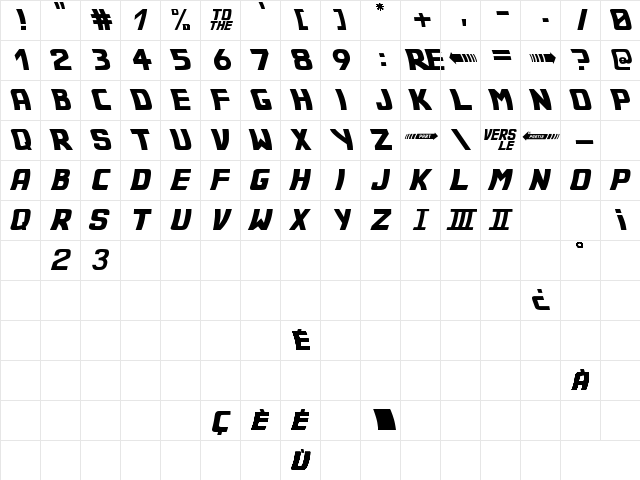
Back to the future 2002 Regular Free Font
Back to the future 2002 Regular
Complete Back to the future 2002 Regular glyph index. Displaying only characters natively supported by Back to the future 2002 Regular font.
Design Context for Back to the future 2002
Back to the future 2002 has a distinctly futuristic character, with geometric precision and clean angles that feel at home in technology, gaming, and sci-fi contexts.